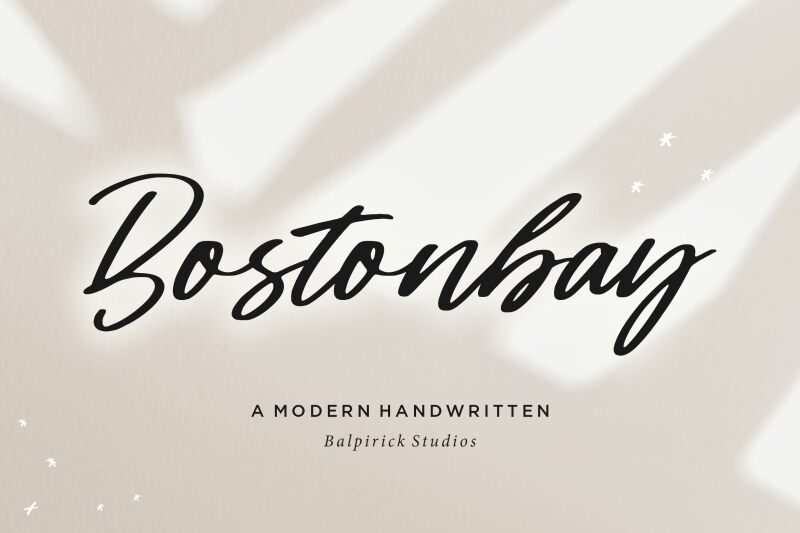
Bostonbay
Bostonbay, designed by Balpirick Studio, is a captivating modern handwritten font with a semi-light weight. Its fluid strokes and contemporary charm make it perfect for a myriad of projects. Whether you're designing sleek logos for tech startups or elegant wedding invitations, Bostonbay exudes sophistication and style. Its versatility shines in branding materials, product packaging, social media graphics, and editorial designs alike. Elevate your projects with this font that effortlessly combines legibility with artistic flair. Bostonbay is the ultimate choice for those seeking a refined touch in their creative endeavors.